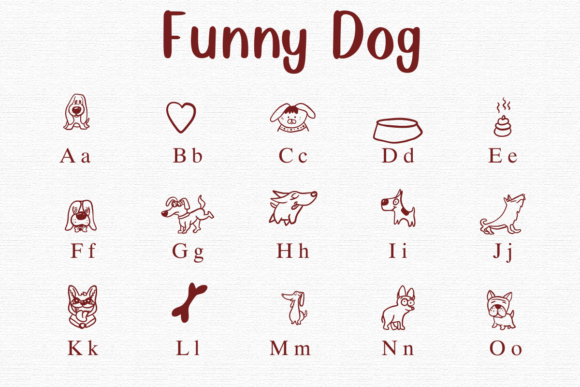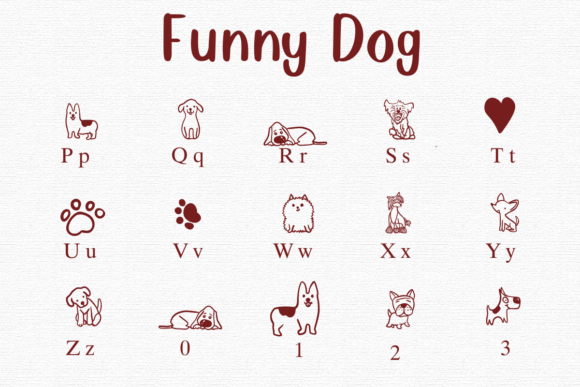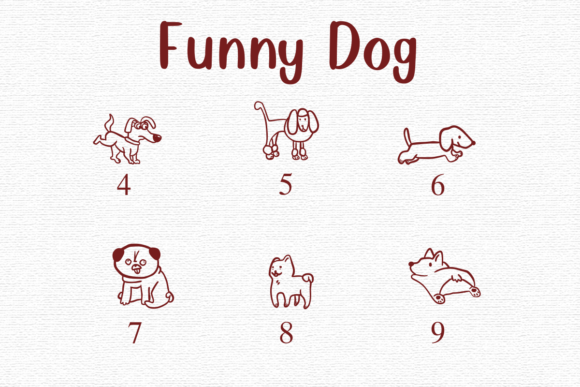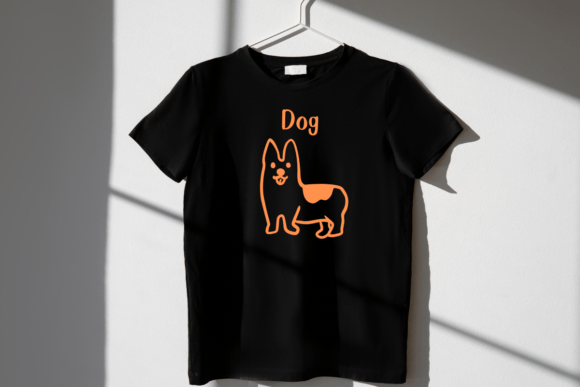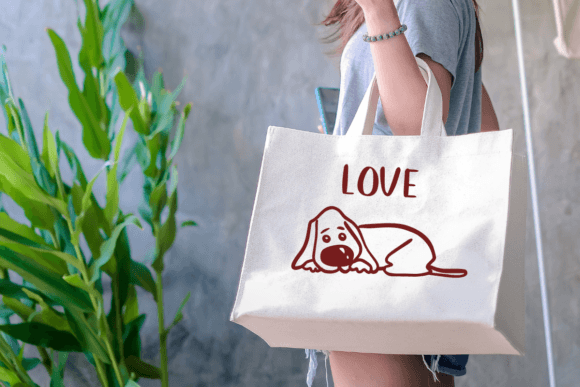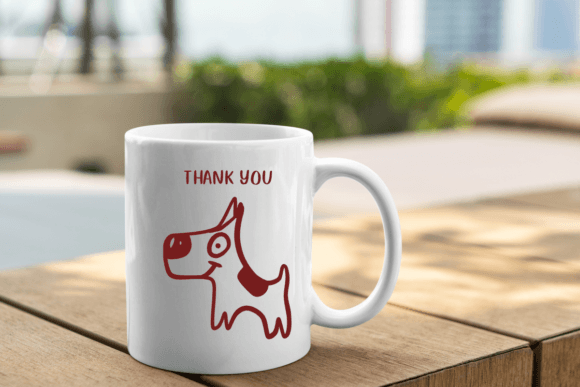
The Paw-fect Font: Introducing Funny Dog
I’ll never forget the time I was working on a project for a pet store client, trying to come up with a fun and playful font to match their brand. I had searched high and low, but nothing seemed quite right. That was when I stumbled upon the ‘Funny Dog’ font – a special kind of font where each letter looks like a funny dog. Imagine writing with letters that are actually playful pups wagging their tails or making silly faces. It’s like your words come to life with adorable doggie characters!
What Makes Funny Dog So Special?
The ‘Funny Dog’ font is perfect for adding a smile to any project or message. Whether you’re a designer, crafter, or creative hobbyist, this font is sure to bring a touch of whimsy and fun to your work. With its unique and playful design, it’s ideal for projects that need a bit of personality, such as:
- Pet store branding and advertising
- Children’s party invitations and decorations
- Social media graphics and posts
- Custom gifts and merchandise
So, what do I love about the ‘Funny Dog’ font? Here are a few things that make it stand out:
- ✨ Unique and playful design that’s sure to grab attention
- ✅ Easy to read and understand, even in smaller sizes
- 💕 Adorable dog characters that add a touch of personality to any project
Of course, no font is perfect, and there are a few small quirks to be aware of:
- 🤔 Some letters may not be suitable for formal or professional projects
- ⚠️ May not work well in very small sizes or at high resolutions
The Designer Inspiration Behind Funny Dog
The ‘Funny Dog’ font was designed with one goal in mind: to bring a smile to people’s faces. The designer, a self-proclaimed dog lover, wanted to create a font that would capture the playful and affectionate nature of dogs. With its unique and whimsical design, ‘Funny Dog’ is sure to bring a touch of personality to any project.
| Font Name | Funny Dog Font |
| Author | Nongyao |
| What is the ‘Funny Dog’ font best used for? | The ‘Funny Dog’ font is best used for projects that need a playful and whimsical touch, such as pet store branding, children’s party invitations, and social media graphics. |
| Is the ‘Funny Dog’ font available in different styles or weights? | Currently, the ‘Funny Dog’ font is available in one style, but the designer may release additional styles or weights in the future. |